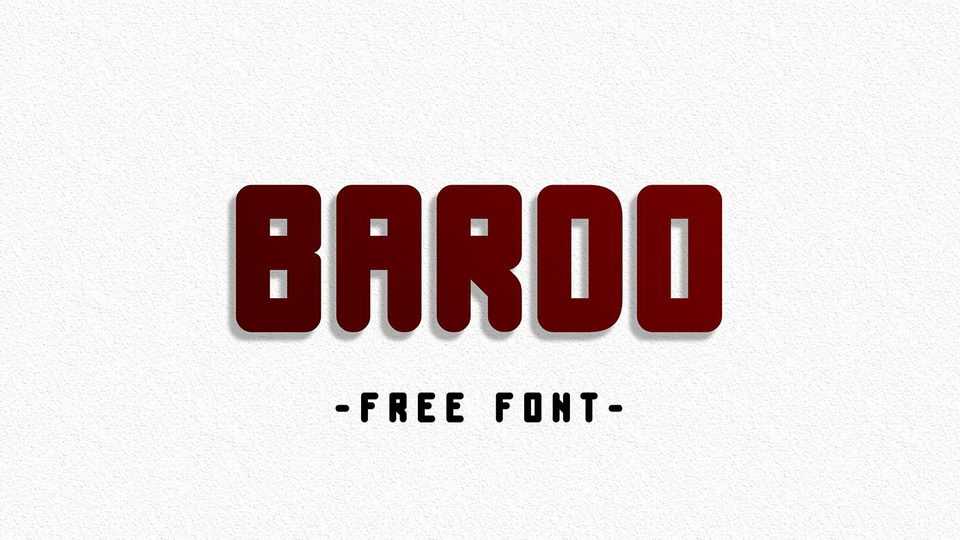
Download Bardo font, a bold display typeface with round corners and friendly look with Basic Latin and Cyrillic support. Bardo font is suitable for posters, headlines and other display use.
Designer: Ilya Zakharov